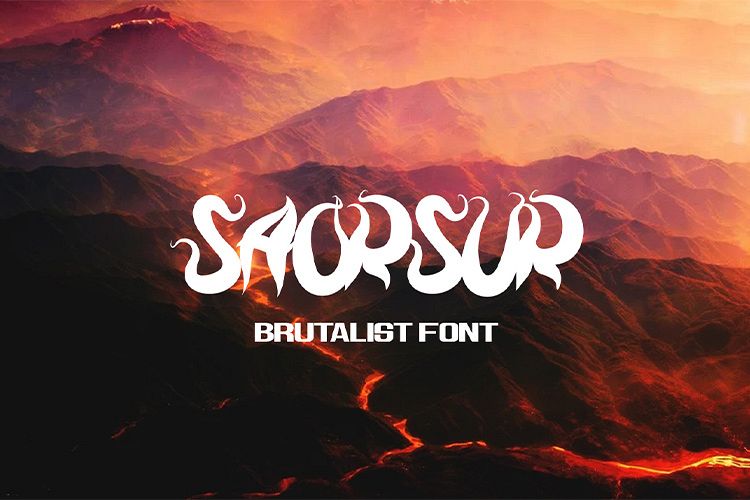
SAORSUR || BRUTALIST FONT
SAORSUR SANS
SAORSUR SANS-Bold
SAORSUR
SAORSUR FONT is inspired by psychedelic and stoner music. making this font has a typeface that is suitable for music posters, music albums, sports, and brutalist designs.